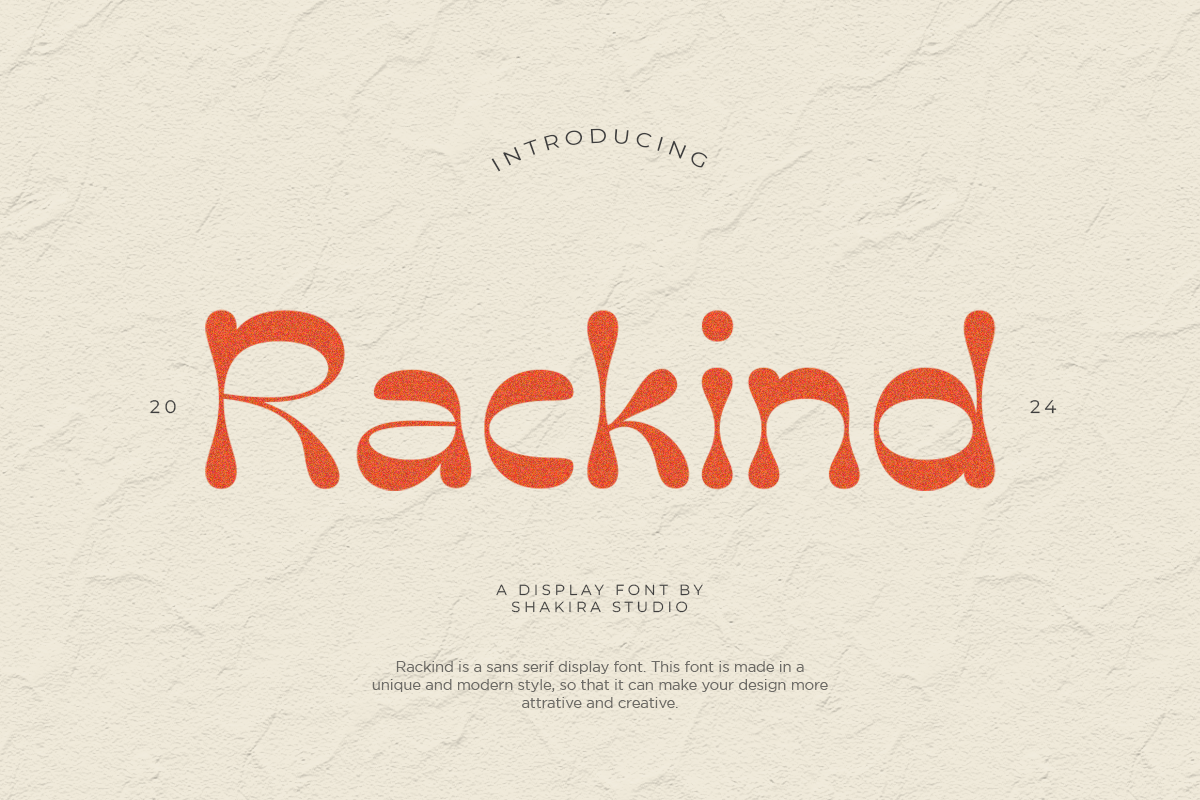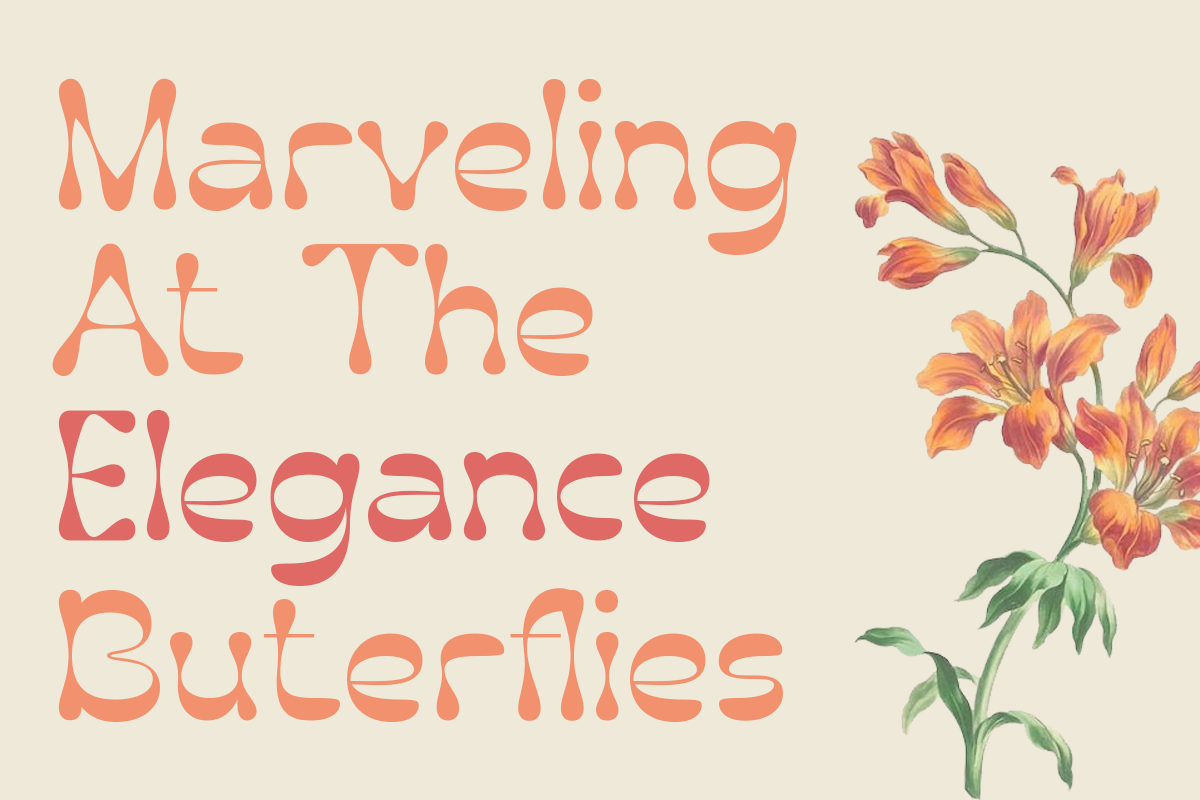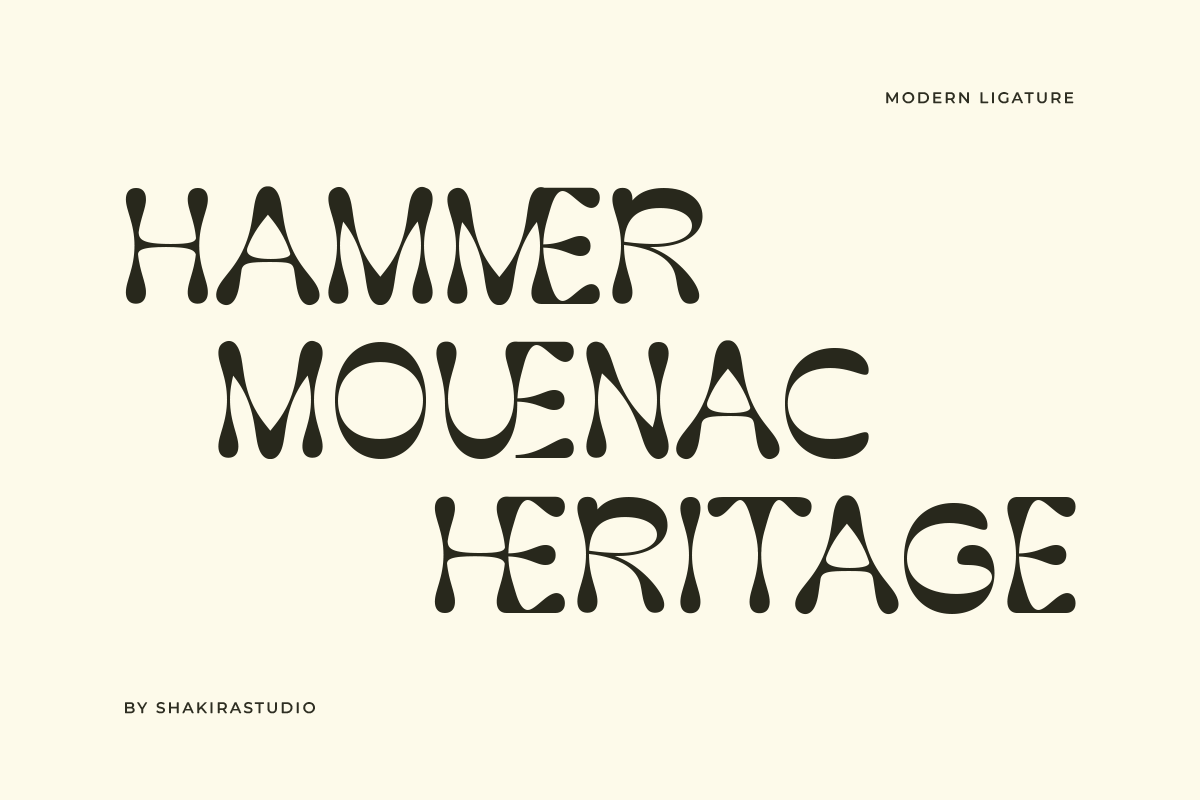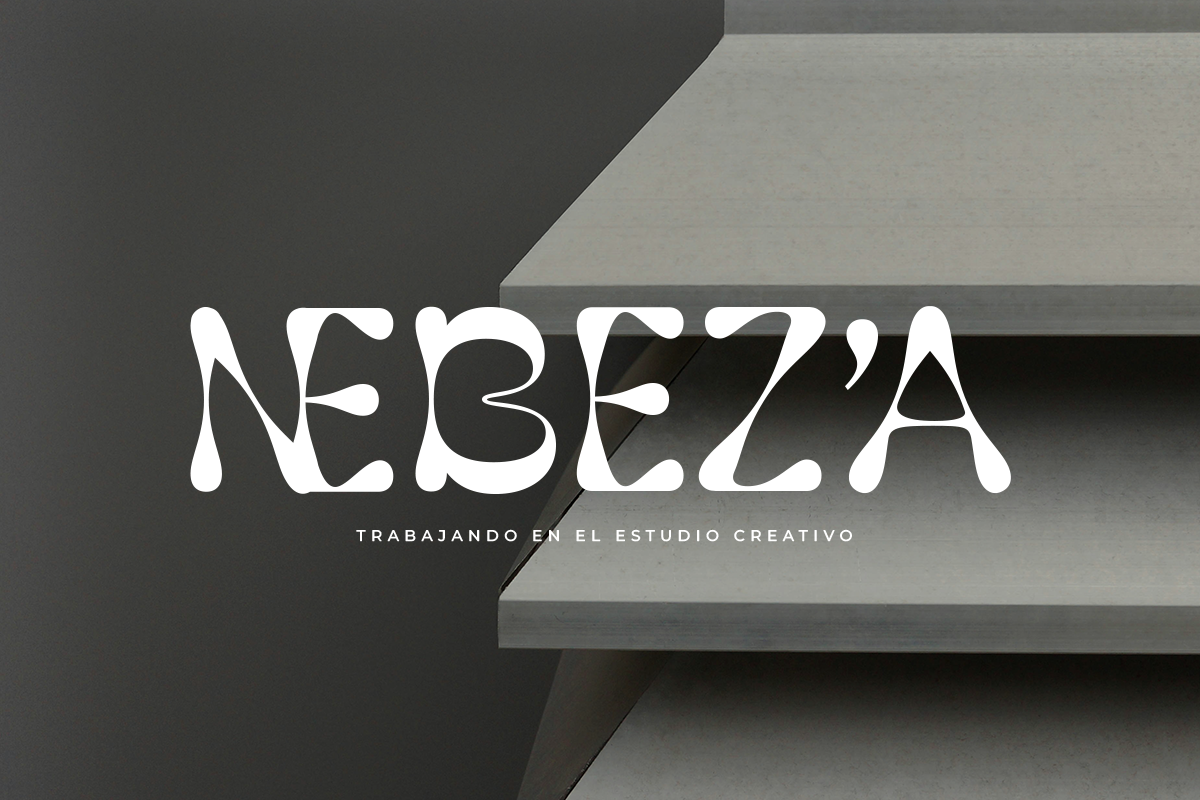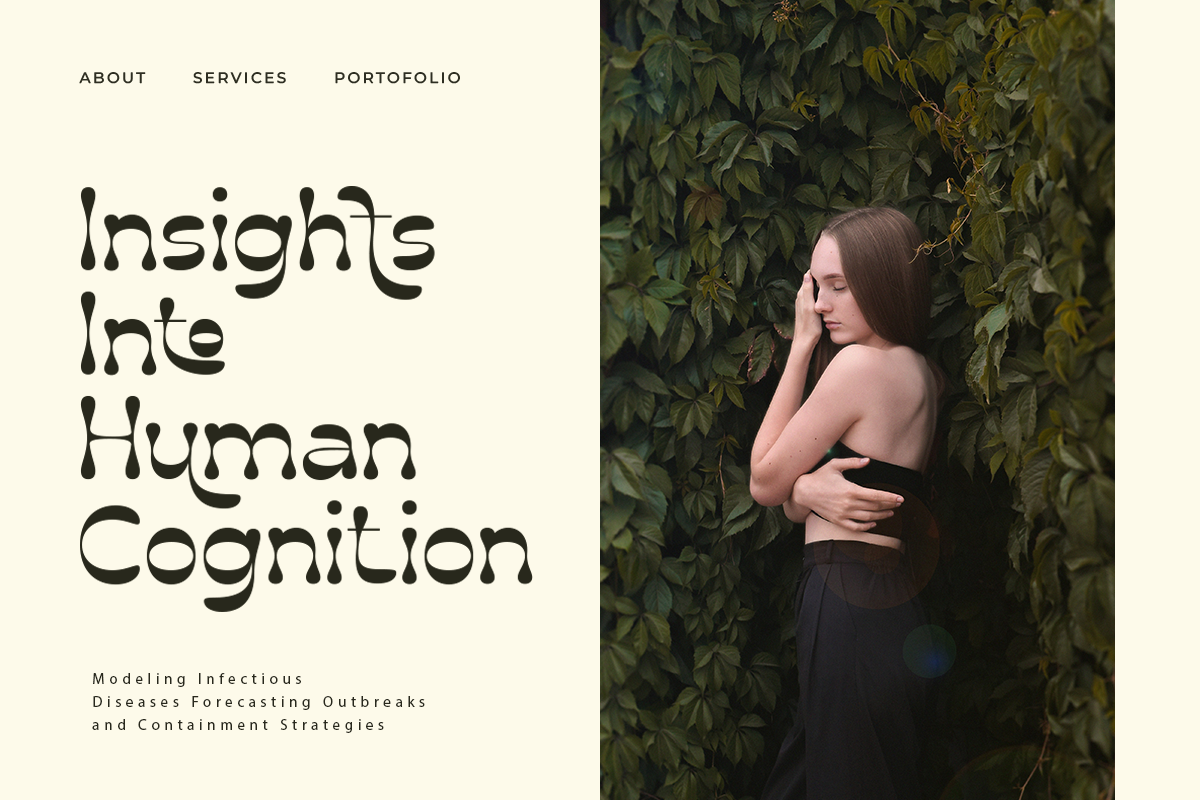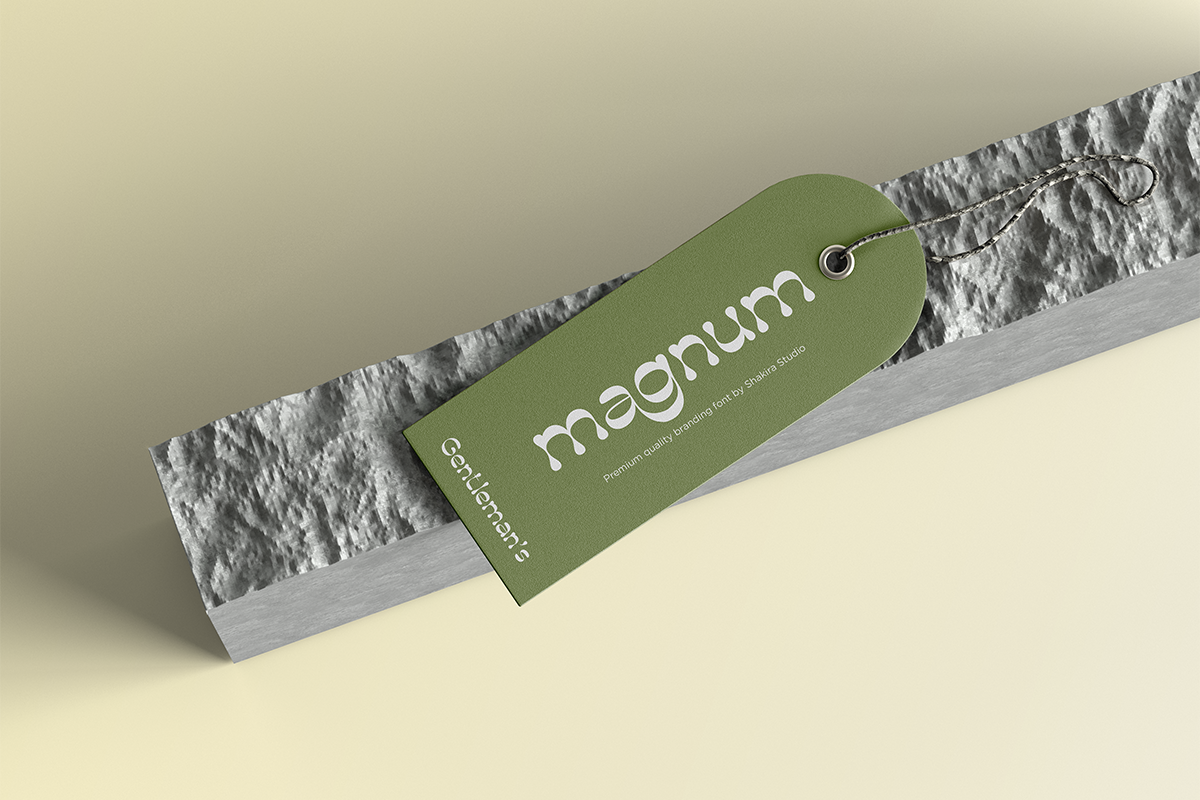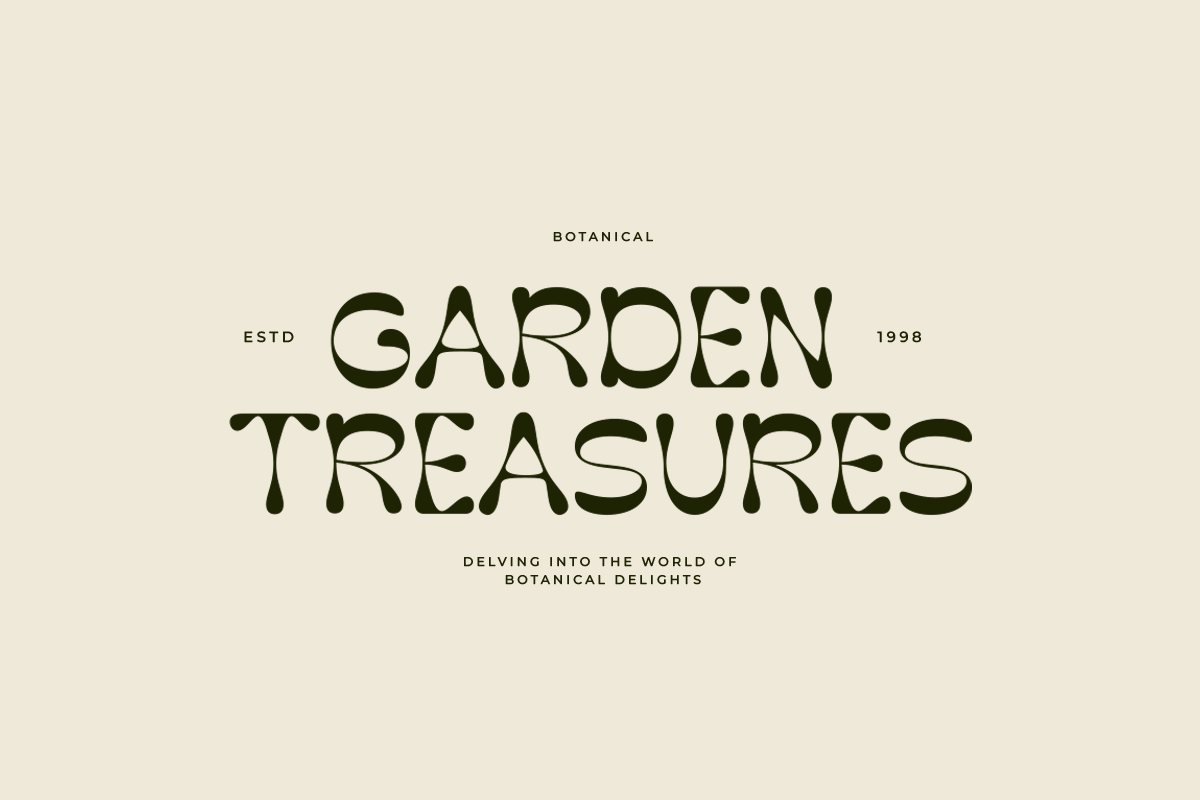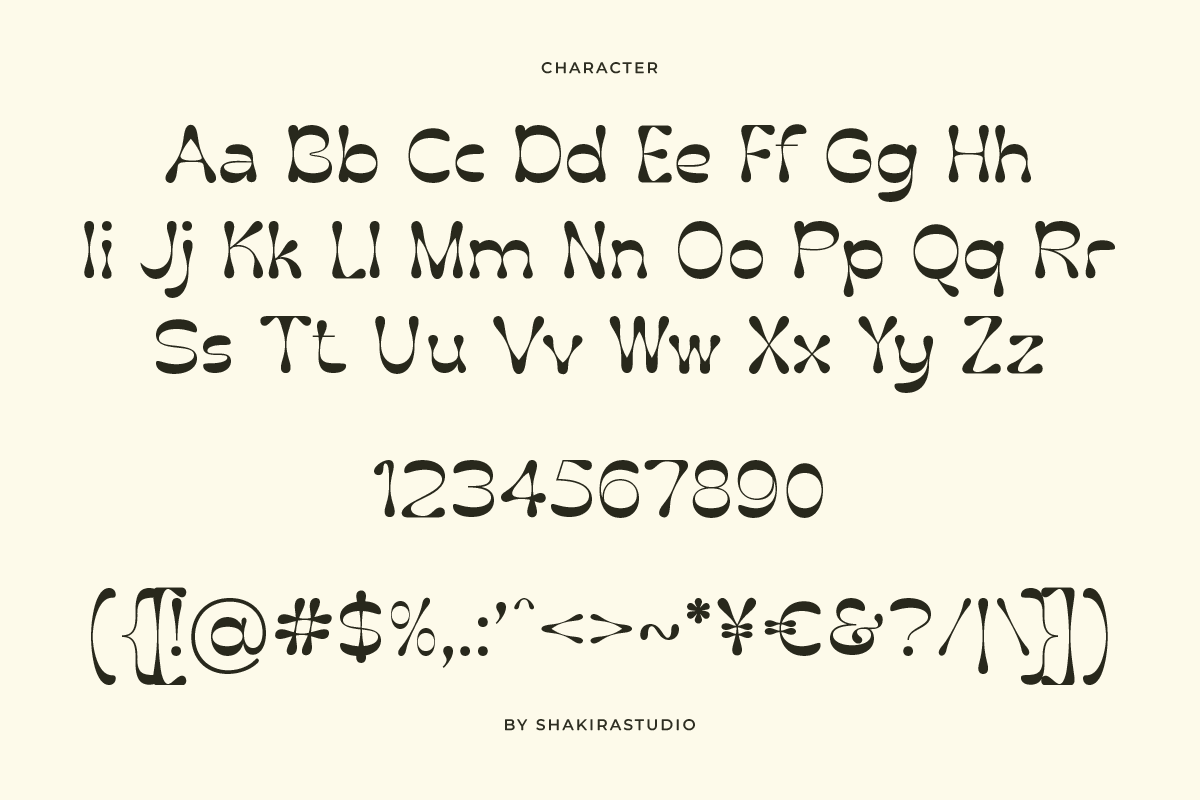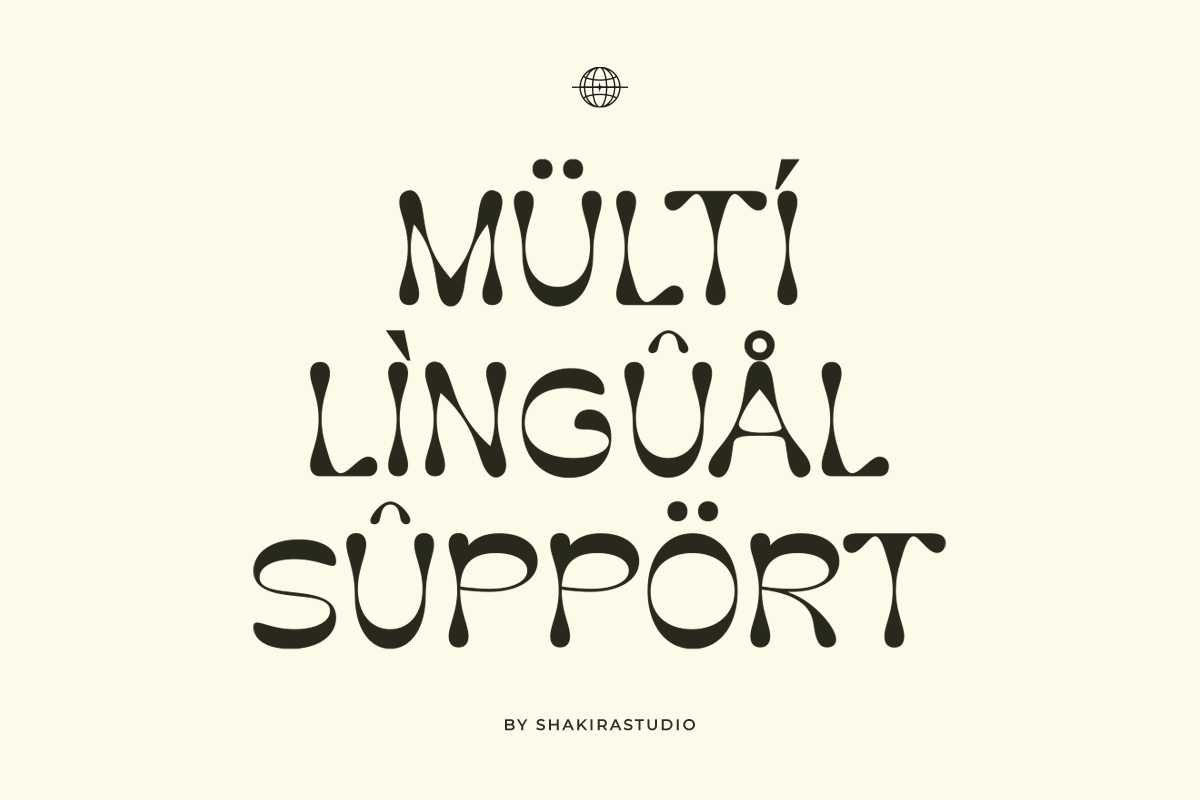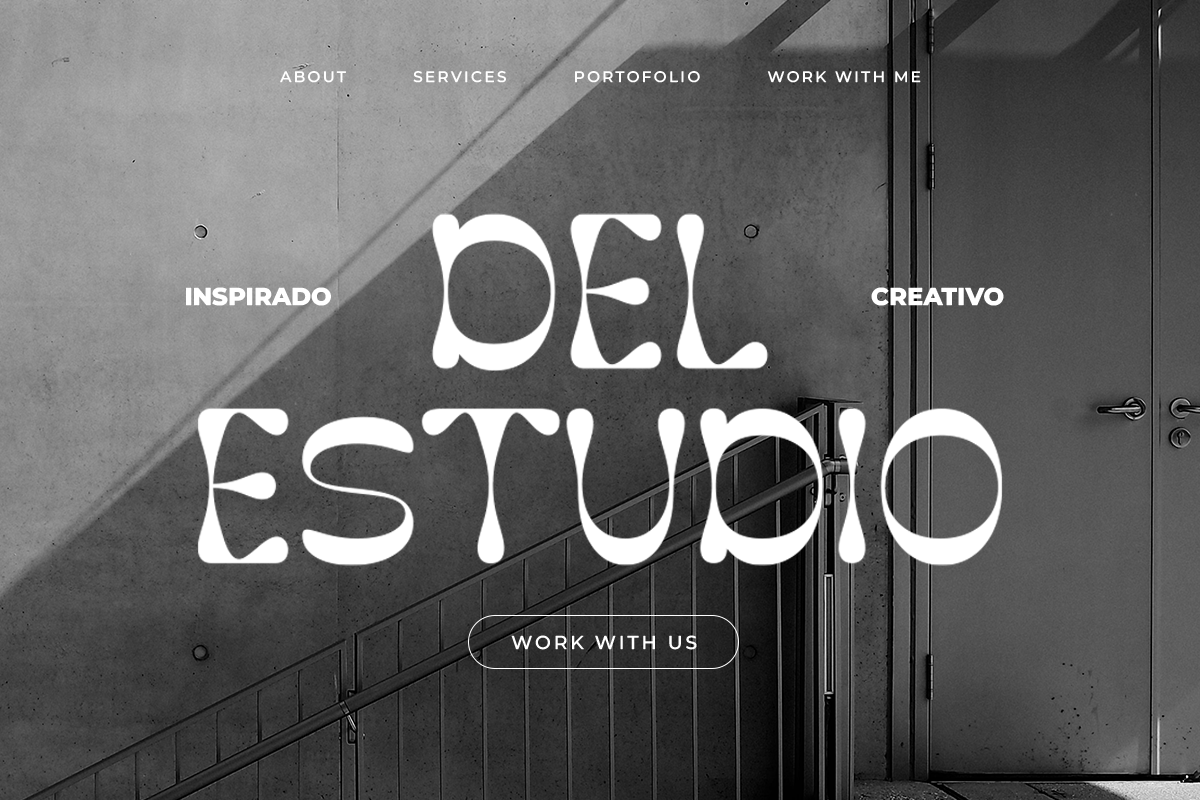
Rackind - Unique Display Font
Introducing Radnic - Where Unique Modernity Meets Timeless Sophistication!
Radnic isn't just another serif font; it's a fusion of boldness and subtlety, creating a striking balance that's perfect for contemporary designs. With its distinctive blend of thick and thin strokes in every character, Radnic sets itself apart as a trendsetter in #SerifFonts and #TypographyTrends.
Crafted for designers seeking a font that stands out from the crowd, Radnic adds a touch of modern flair to any project. Whether you're designing logos, headlines, or branding materials, Radnic's unique style will leave a lasting impression.
- Regular & Italic
- Opentype features ( ligature, alternate )
Multilingual character supports : (Afrikaans, Albanian, Catalan, Croatian, Czech, Danish, Dutch, English, Estonian, Finnish, French, German, Hungarian, Icelandic, Italian, Lithuanian, Maltese, Norwegian, Polish, Portuguese, Slovenian, Spanish, Swedish, Turkish, Zulu)